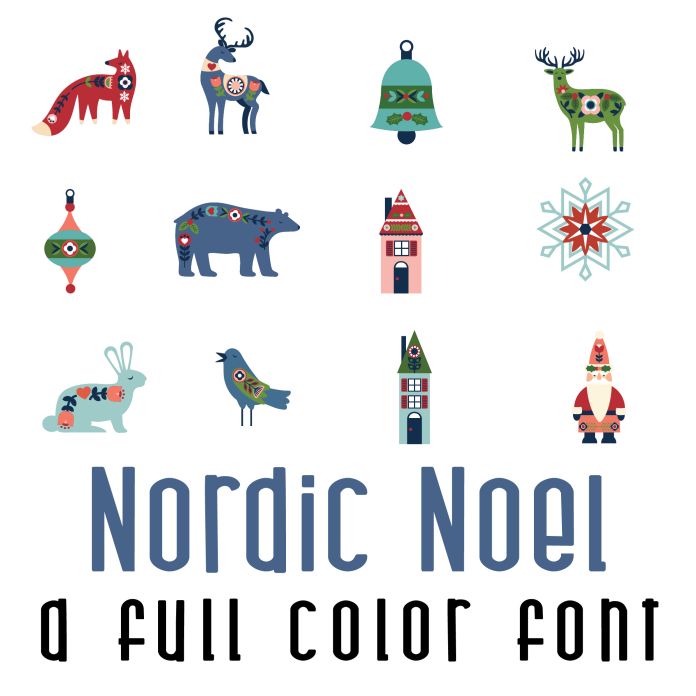
This fun full color font features 26 Nordic style Christmas and holiday elements. Perfect for cards, crafts, gifts, decor, planner stickers, scrapbook pages, classrooms and more!